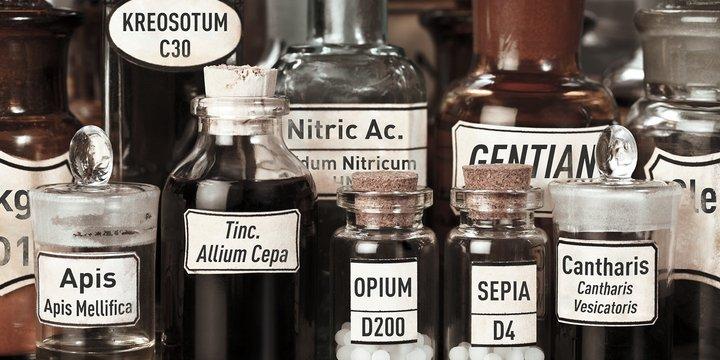
FF DIN Pro Font
Dutch type designer Albert-Jan Pool created this sans FontFont between 1995 and 2009.
The family has 20 weights, ranging from Light to Black in normal and condensed styles (including italics). It is ideally suited for advertising and packaging, editorial and publishing, logo, branding and creative industries, poster and billboards, small text, wayfinding and signage as well as web and screen design.
FF DIN provides advanced typographical support with features such as case-sensitive forms, fractions, super- and subscript characters, and stylistic alternates.
It comes with a complete range of figure set options – oldstyle and lining figures, each in tabular and proportional widths.
As well as Latin-based languages, the typeface family also partly supports the Cyrillic and Greek writing systems.
In 2011, FF DIN was added to the MoMA Architecture and Design Collection in New York.
• Designer: Albert-Jan Pool